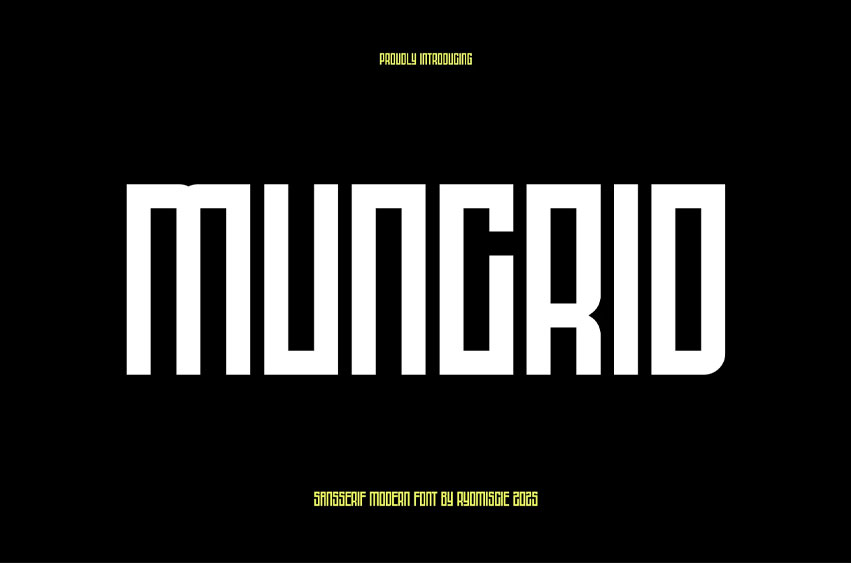
Muncrid Font Modern Font is a bold and authentic display font. The font is suitable for any branding project like logo, t-shirt printing, esport, and many more. outstanding in a wide range of contexts.